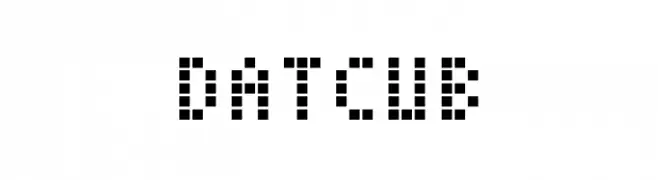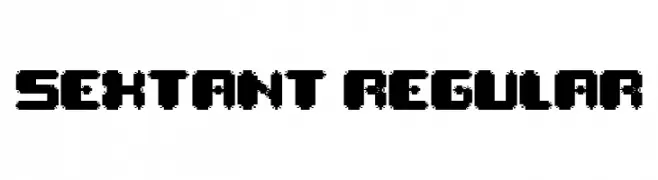
A geometric and abstract font with bold, fragmented shapes and high contrast.
A geometric, monospaced font mimicking 14-segment LED displays.
A bold, futuristic font with geometric shapes and a digital feel.
A pixelated, grid-based font with a retro digital aesthetic.
A bold, geometric stencil font with a modern, industrial aesthetic.
A bold, futuristic font with geometric, capsule-shaped characters and high contrast.
A bold, geometric font with a modern, impactful style.
A bold, pixelated font with a retro digital aesthetic.
A digital, segmented font inspired by classic LED displays.
A bold, geometric font with a pixelated, digital aesthetic.